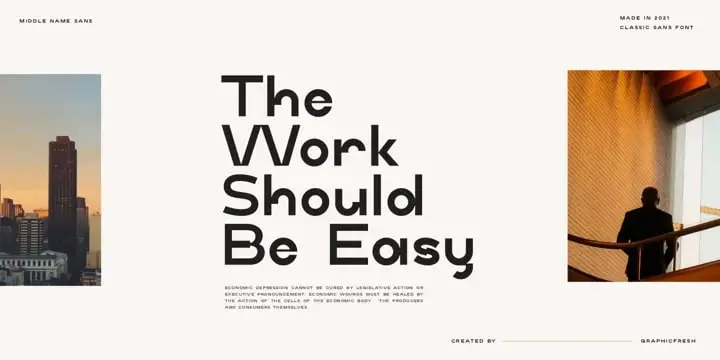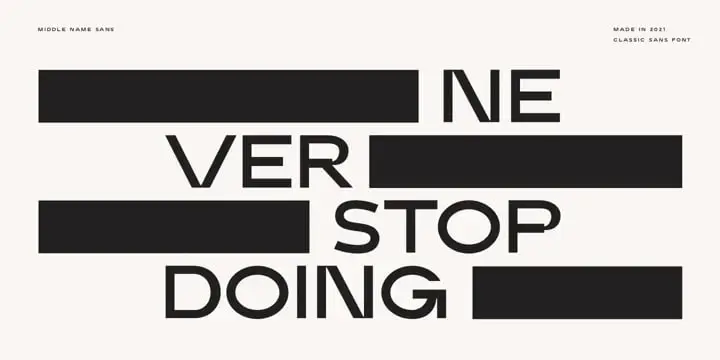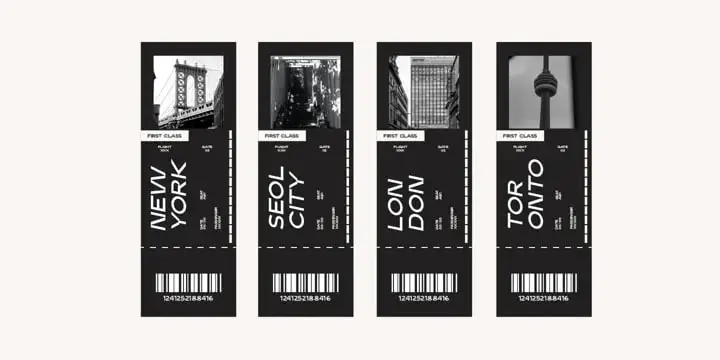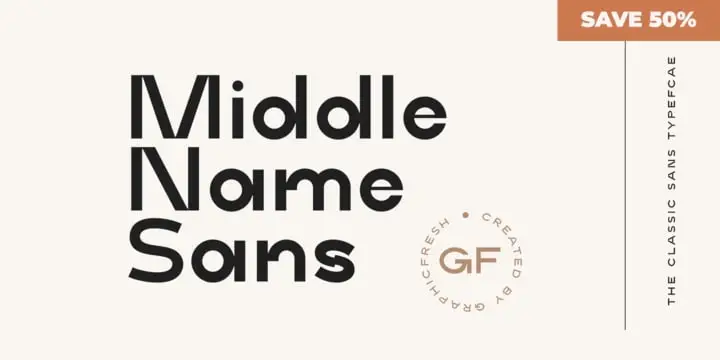
The Middle Name-Minimal Classic Font is a beautifully crafted typeface that embodies simplicity and elegance. Ideal for a variety of design projects, this font features clean lines and a modern aesthetic, making it perfect for branding, logos, and print materials.
- Minimalist design with classic appeal
- Uppercase and lowercase letters
- Numerals and punctuation included
- Styles: Regular, Bold
Utilize the Middle Name-Minimal Classic Font for web design, user interfaces, and printed materials to create a cohesive and professional look.